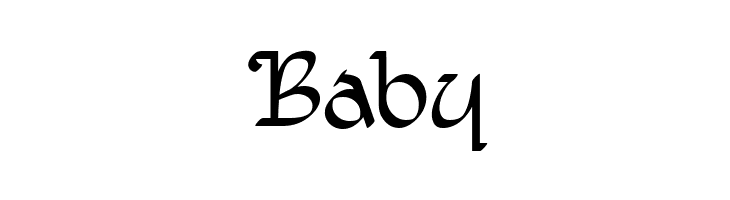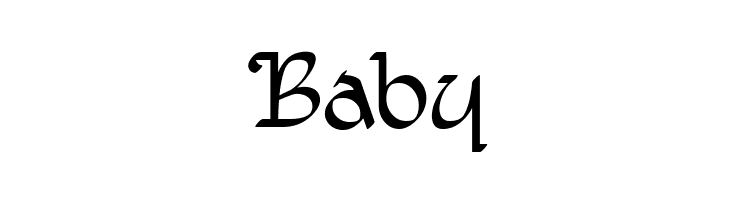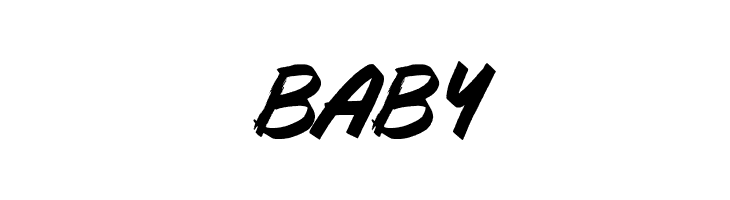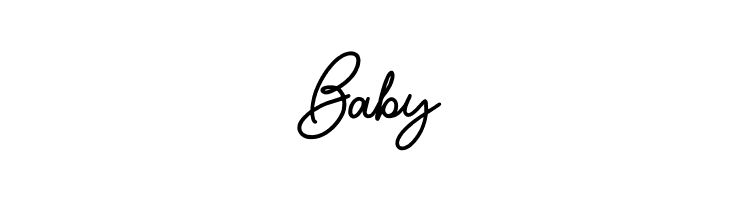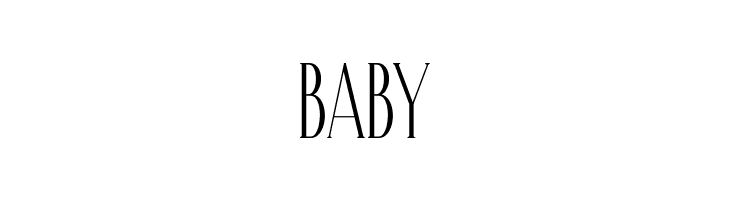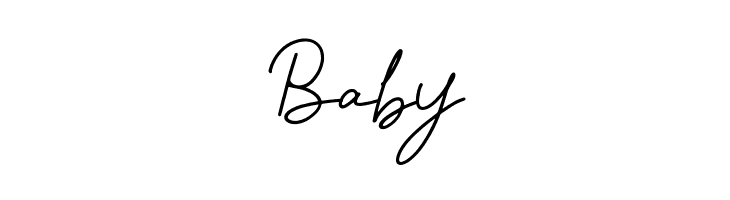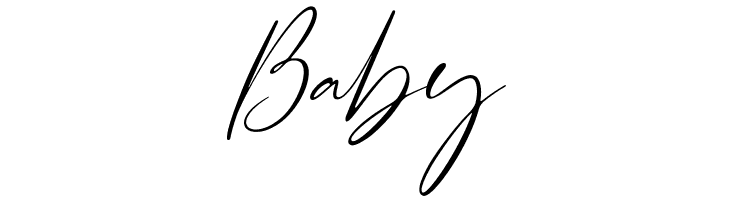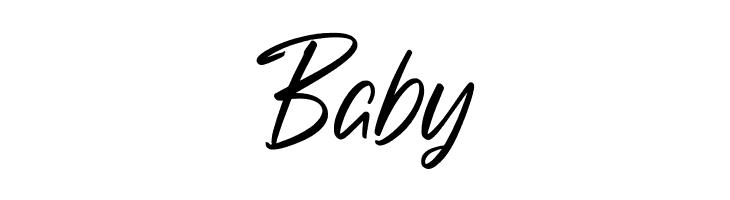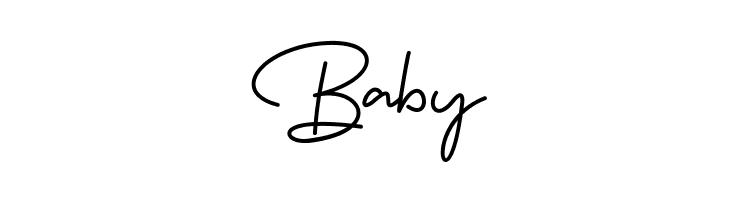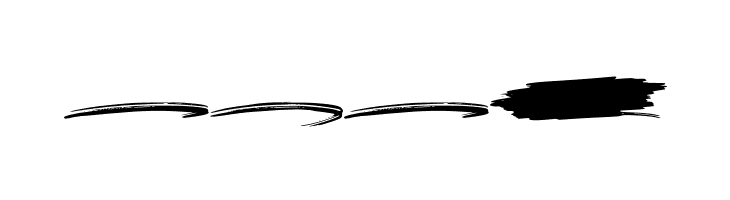
A lively, handwritten font with expressive strokes and a casual style.
A stylish and versatile cursive font with elegant loops and smooth transitions.
An elegant, cursive handwritten font with flowing, interconnected strokes.
A playful, casual handwritten font with fluid strokes and a whimsical charm.
Elegant modern serif with high contrast.
An elegant, high-contrast font with tall, slender characters.
A flowing, cursive script font with elegant, connected letters.
A playful, handwritten font with elegant loops and a whimsical style.
A dynamic and elegant script font with fluid, connected strokes.
A lively, cursive font with elegant, flowing strokes and artistic flair.
A fluid and elegant handwritten script with dynamic strokes.
A dynamic and flowing script font with elegant, cursive strokes.
An elegant, flowing script font with ornate uppercase and connected lowercase letters.
A modern, handwritten font with elegant, flowing lines and a personal touch.
A modern, flowing cursive font with elegant and smooth letterforms.
A classic serif font with elegant strokes and high contrast.
An ornate, decorative font with intricate flourishes and a modern script style.
A bold, expressive script font with dynamic curves and artistic flair.
A bold, handwritten-style font with a dynamic and energetic appearance.
A bold, brush-style font with dynamic, hand-painted strokes.
A playful, handwritten font with a casual and informal style.
A dynamic, handwritten font with fluid strokes and a casual, artistic style.
A dynamic brush script font with bold, expressive strokes and a hand-painted feel.
An elegant, flowing font with swash elements and a calligraphic style.
An elegant script font with intricate loops and swirls, perfect for sophisticated designs.
An ornate and decorative font with intricate flourishes and embellishments.
A classic calligraphic font with elegant, flowing strokes and ornate details.
A calligraphic font with elegant, flowing strokes and intricate details.
A calligraphic font with elegant, flowing strokes and ornate details.
A bold, geometric font with strong, angular lines and a blocky appearance.
A bold, cursive font with dynamic strokes and a lively, stylish appearance.